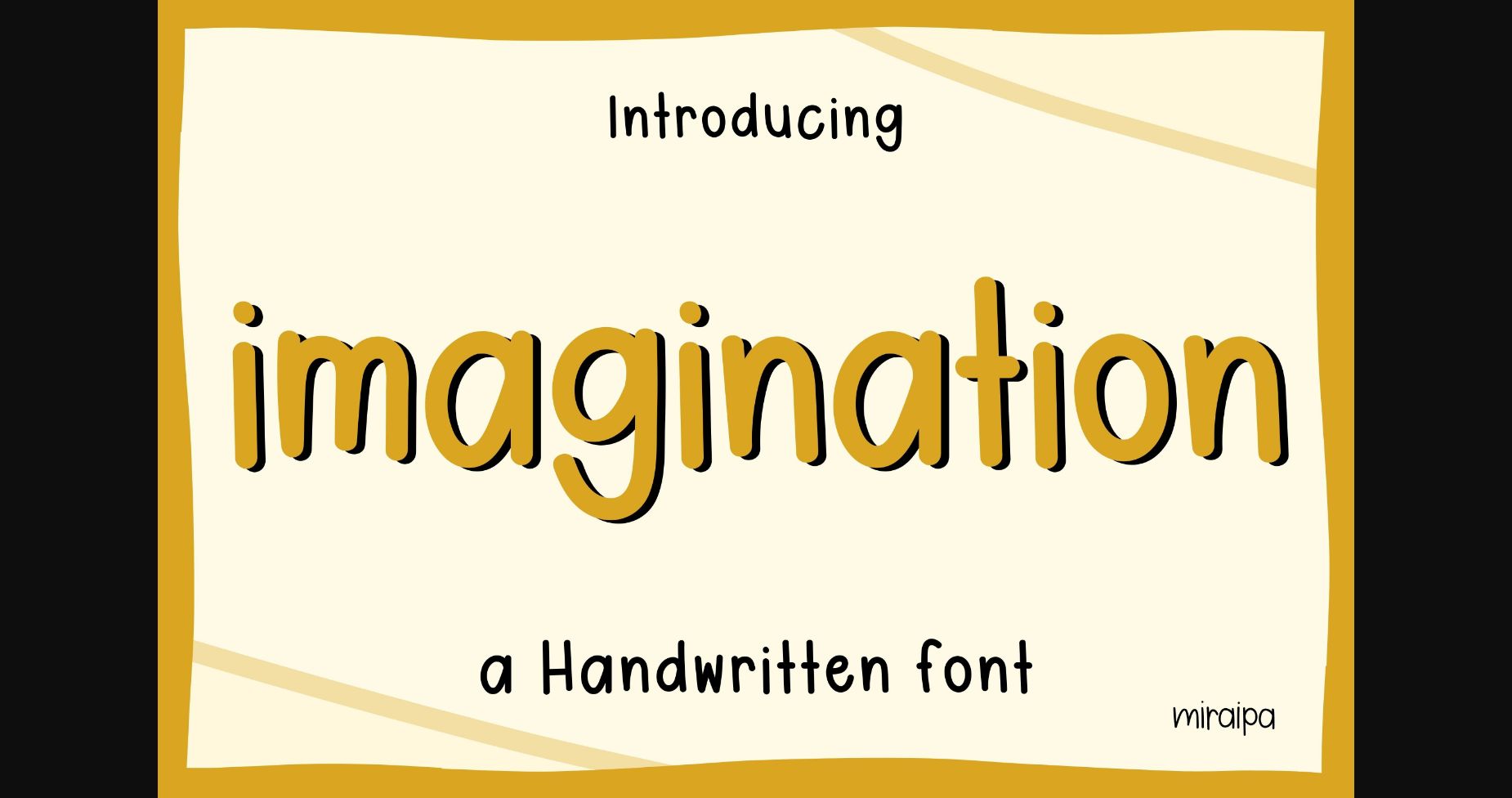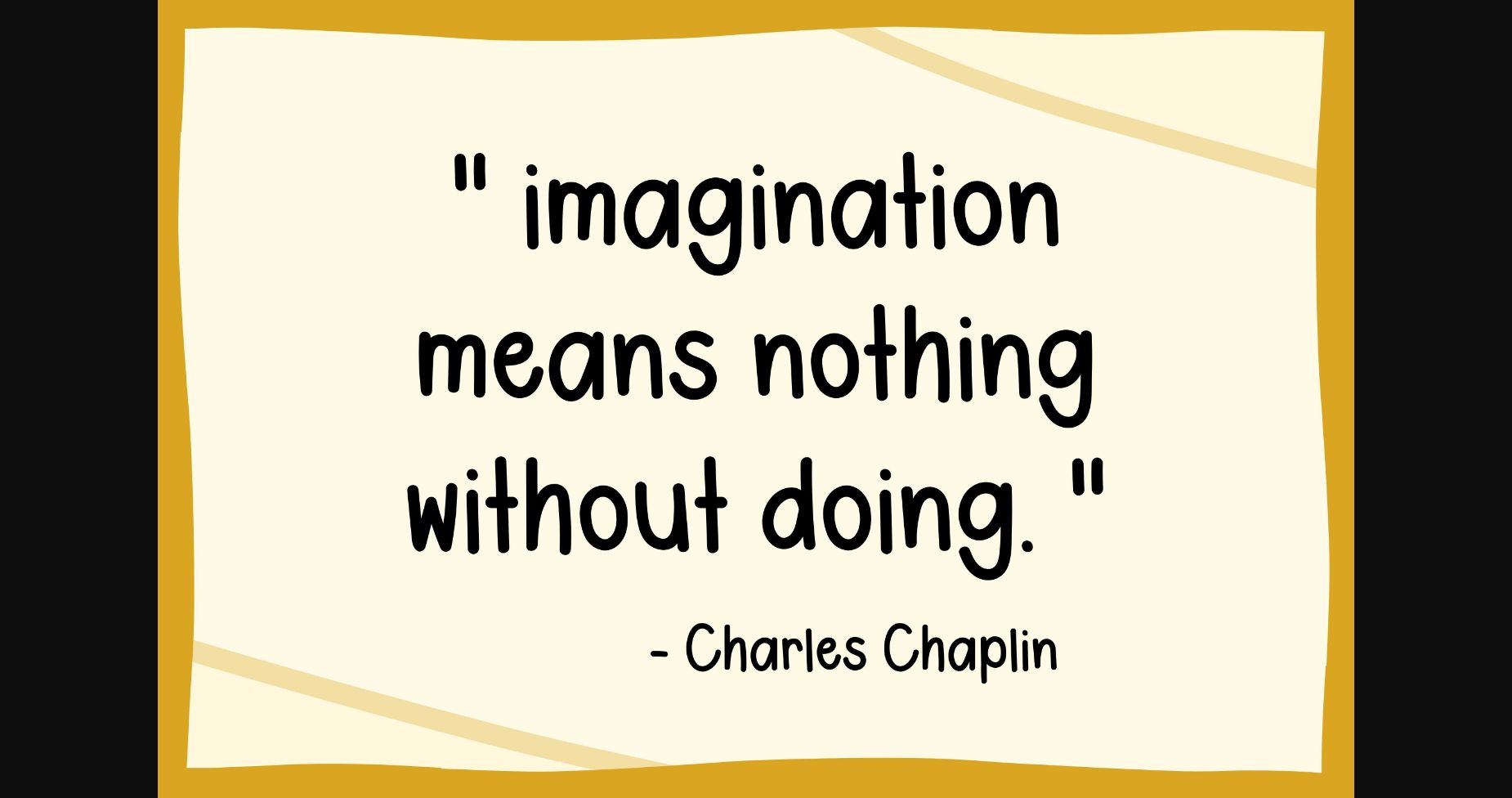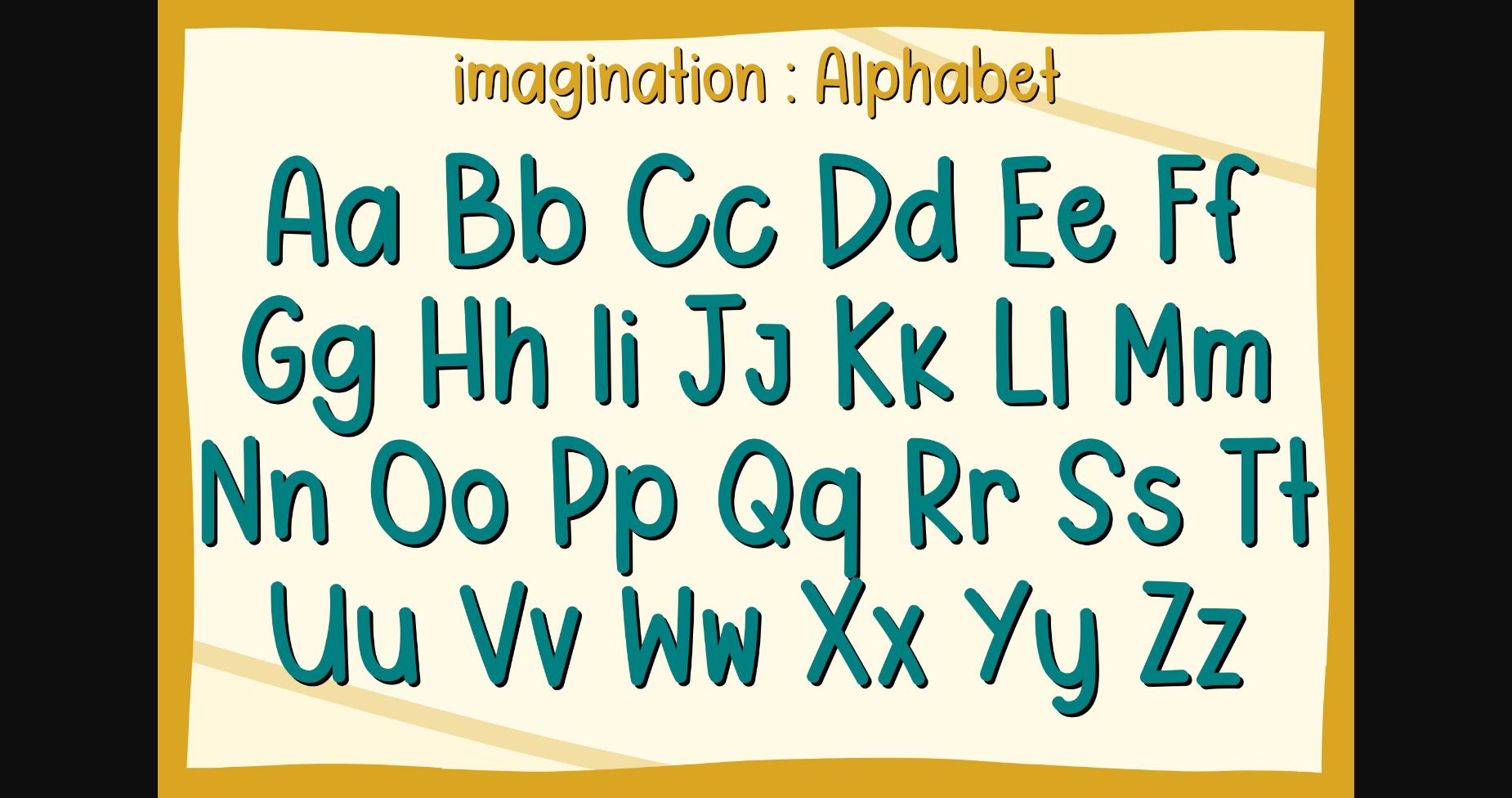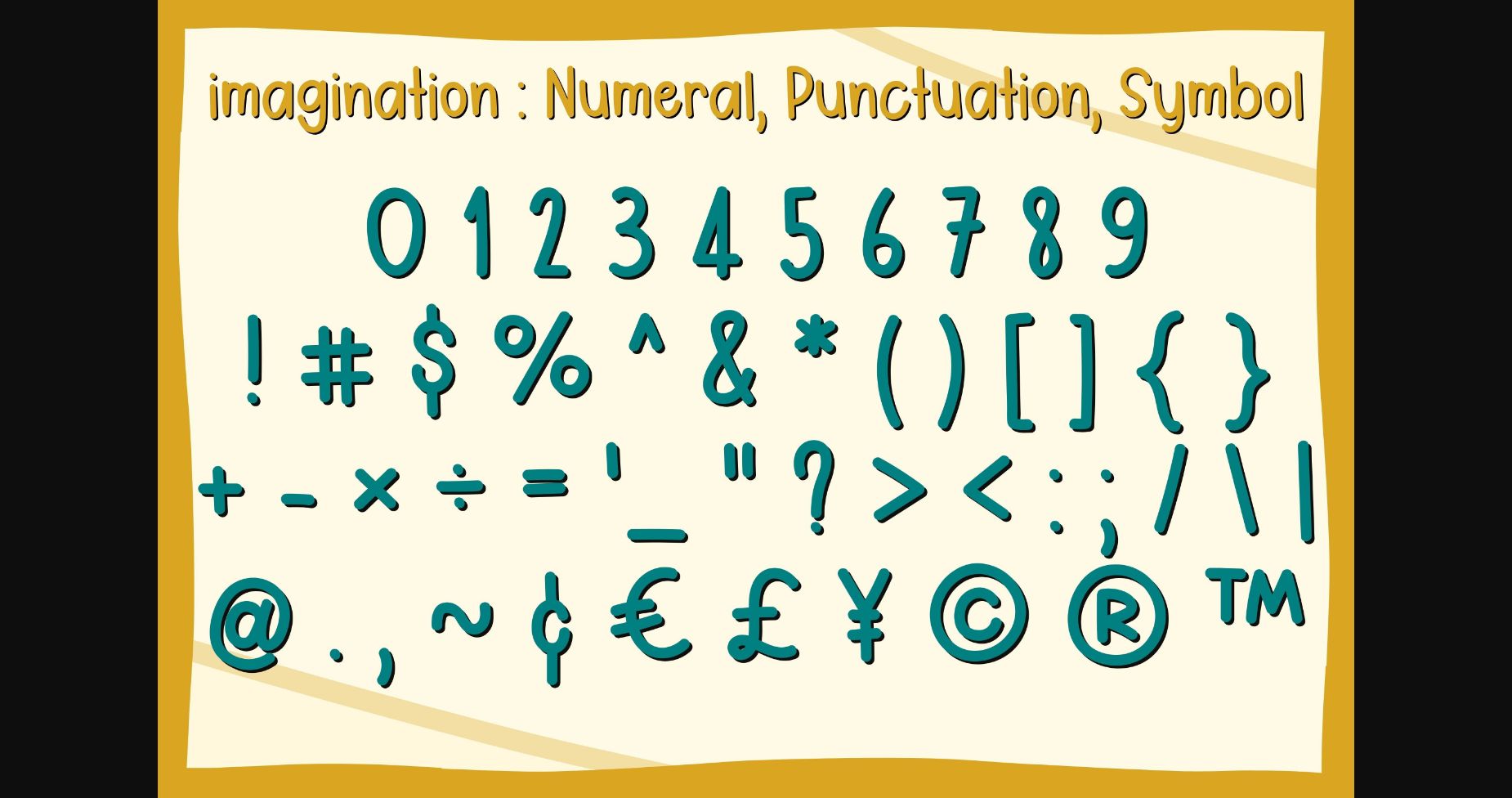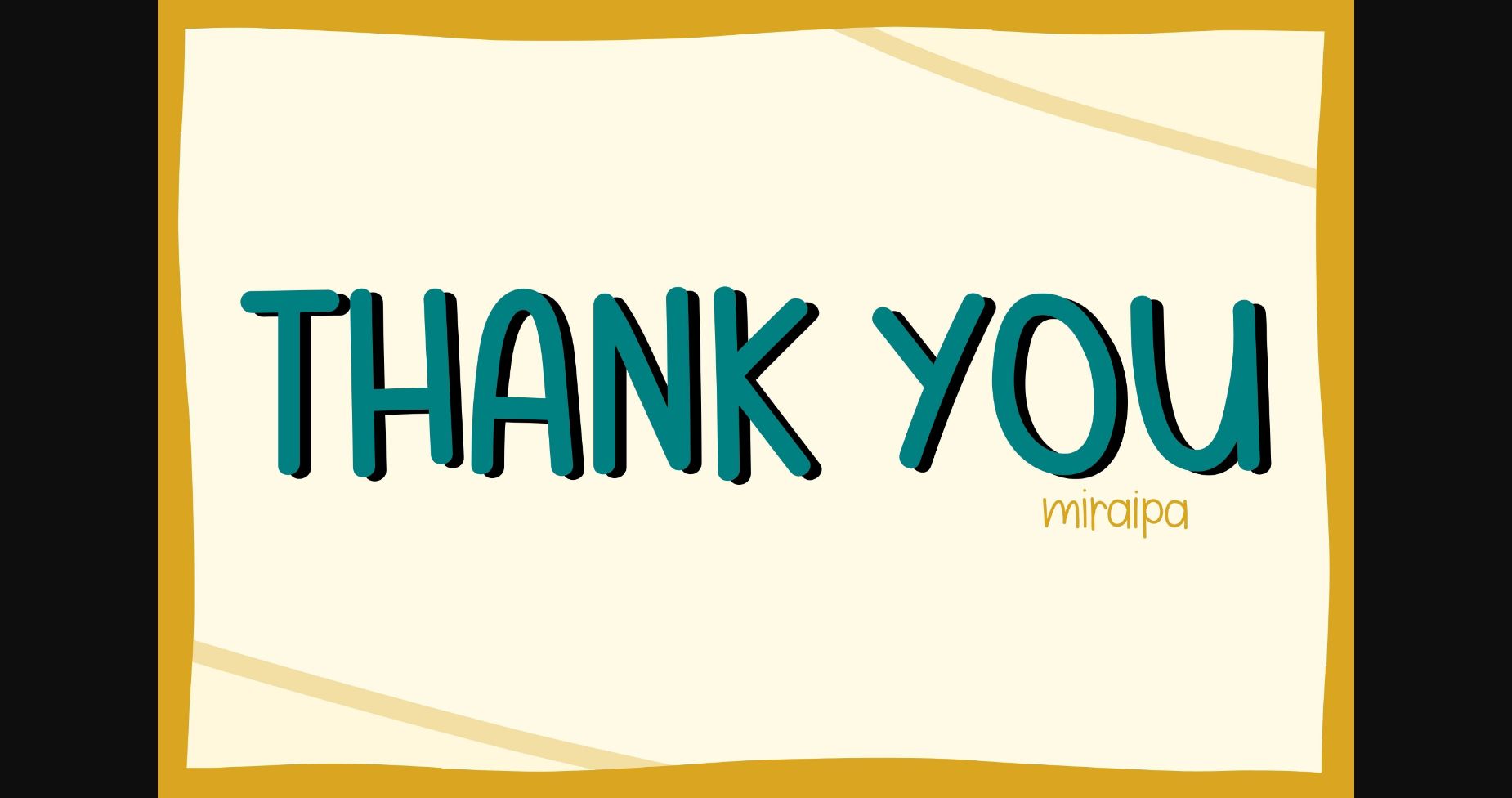
Imagination Font
About Imagination Font
Imagination is a handwritten font designed in a friendly and lovely style. It would be awesome for your diary planners, journals, party invitations, posters, blogs, clothing, child-related designs, greeting cards, social media posts, or anything that needs a friendly touch. Add it now to your fonts library, and it will bring any of your DIY projects to life.